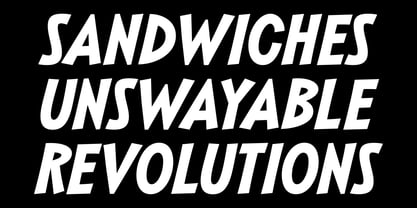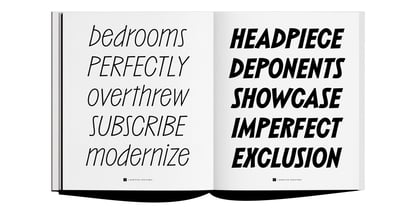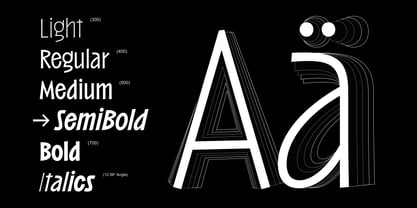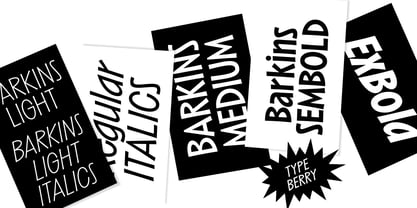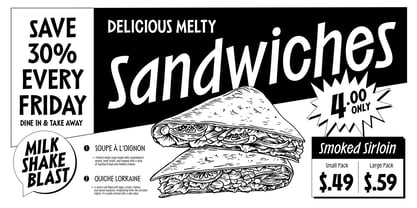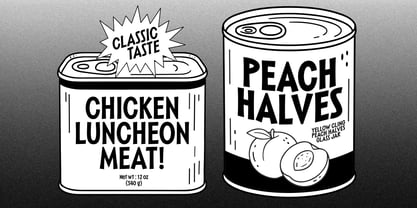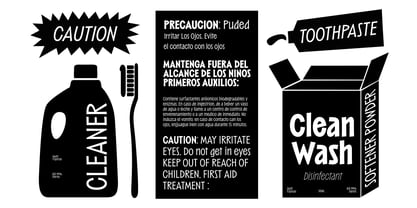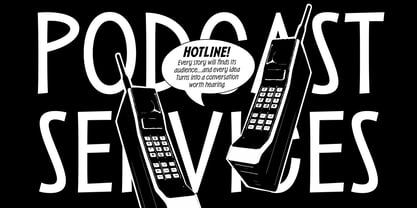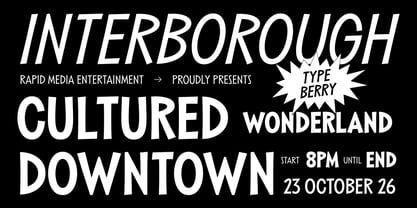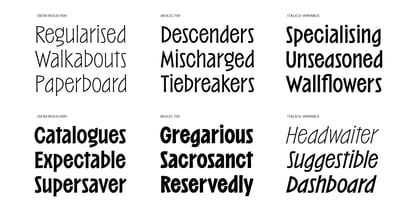
Barkins
by Typeberry
The Barkins Font Family was designed by Annas Alam Yahya, Bagus Arya Kirana, Michola Putra Siswandi and published by Typeberry. Barkins contains 10 styles and family package options. More about this family
Barkins is a playful contemporary sans serif with a confident, human touch.
Designed to feel bold yet friendly, Barkins blends quirky geometry with smooth curves—making it instantly eye-catching without losing clarity.
The character set features slightly irregular proportions and expressive details that bring warmth and personality to any layout. From packaging and branding to editorial headlines, posters, and UI accents, Barkins shines wherever strong visual voice is needed.
Barkins comes with 5 weights (Light to Bold) plus Italics, offering flexible typographic hierarchy while keeping a consistent, lively rhythm across all styles.
A versatile choice for designers looking for a playful contemporary sans with strong character and a complete font family.
Designers: Annas Alam Yahya, Bagus Arya Kirana, Michola Putra Siswandi
Foundry: Typeberry